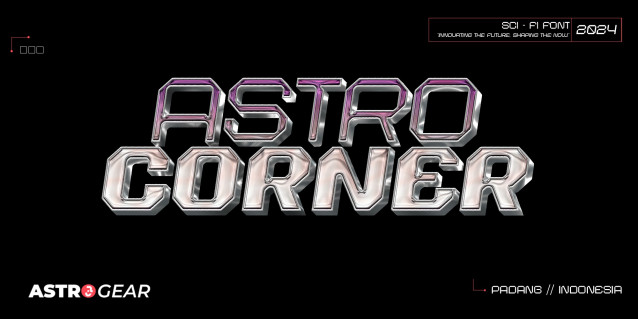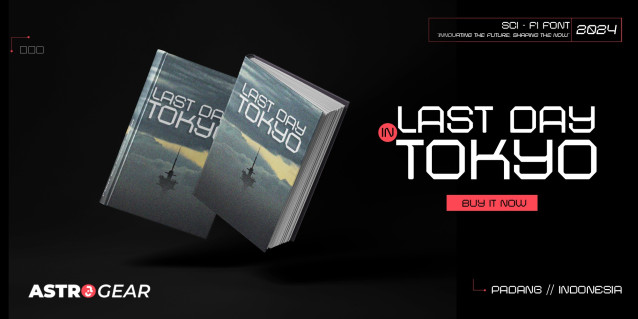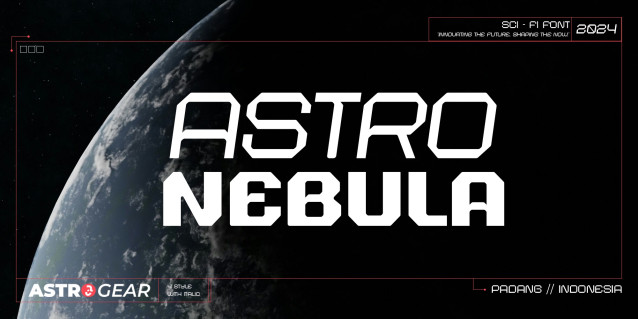
Astro Nebula Font Family
Astro Nebula Font Family is the font your designs didn’t know they were begging for. Industrial, sharp, and just the right amount of edgy, this triple-weight powerhouse comes locked and loaded with everything you need
Each letter and number in Astro Nebula is crafted with precision: sharp, tech-inspired edges and smooth, industrial curves. With four weights —light, regular, bold and style 1.
Astro Nebula has versatility while still keeping that tech-savvy vibe, between sci-fi dystopias and sleek, modern design.
Whether you’re crafting a futuristic interface, a gritty sci-fi zine, or something no one’s dared to imagine yet, Satura shows up like the MVP every time. Got numbers? Special characters? You bet. This full-character set is locked and loaded for your next big idea, add it to your arsenal and watch the magic happen.